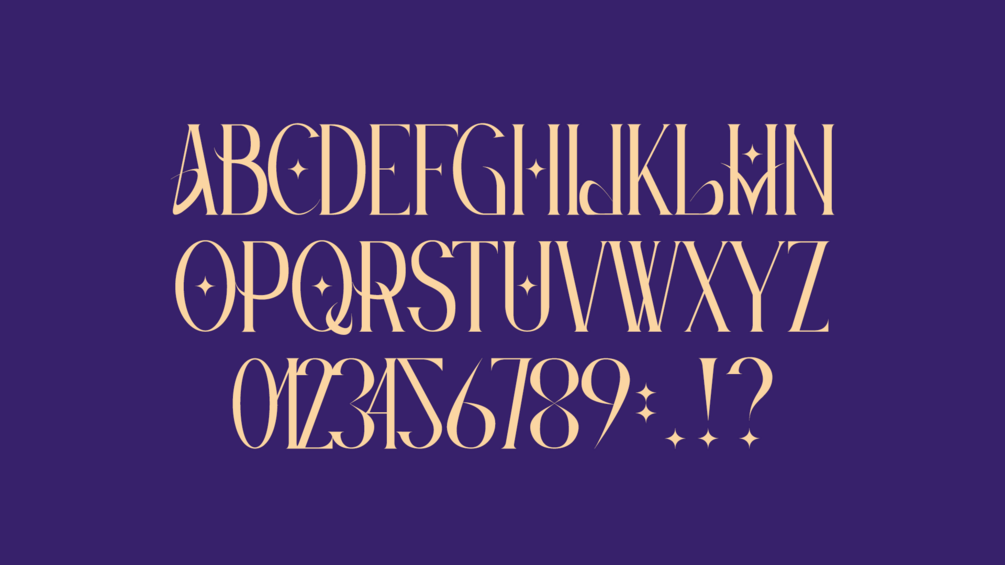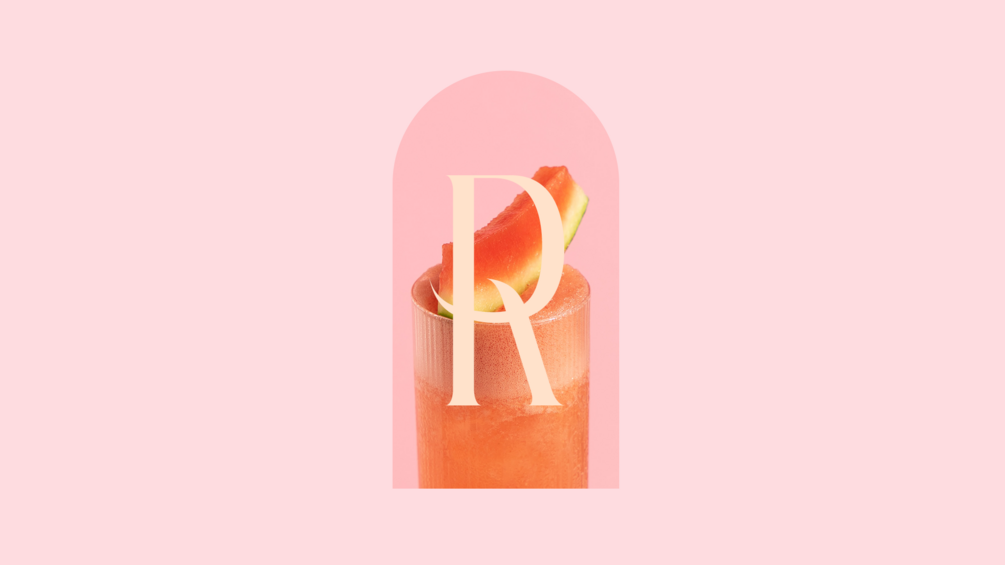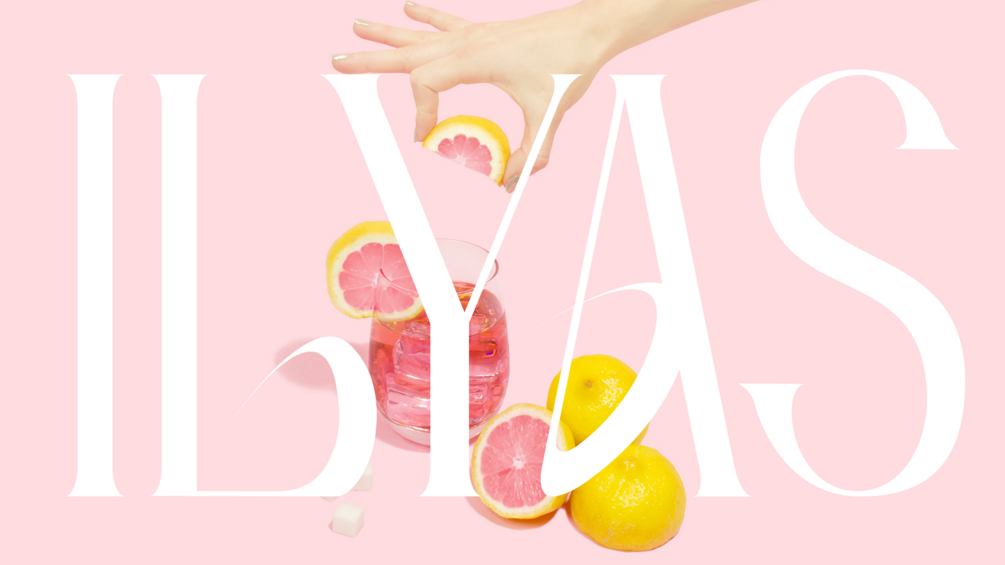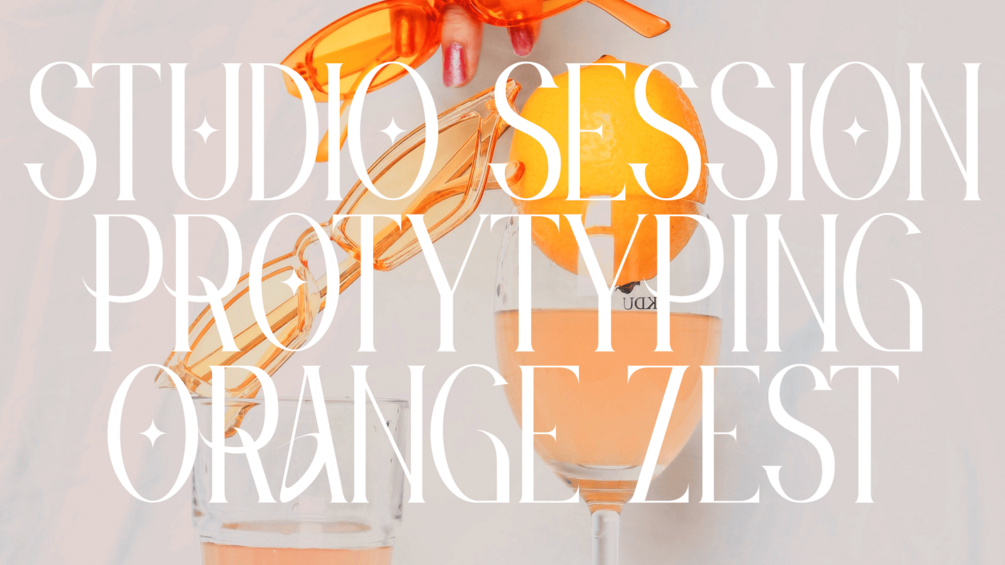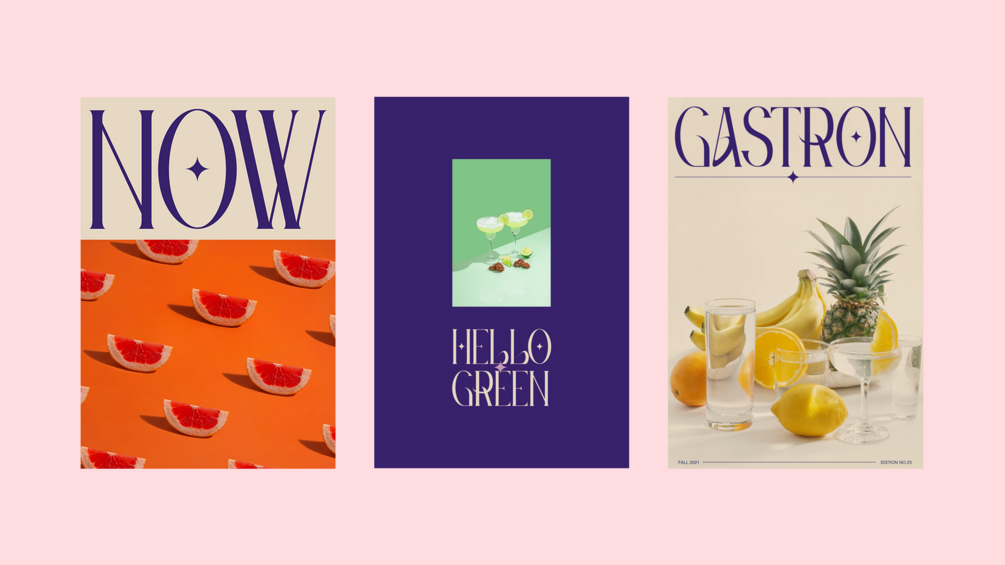
Ilyas - Free Serif
Ilyas is our free serif display font inspired by strong decorative elements. With its sharp lines and condensed style its perfect for big headlines, or used as a separate graphic element. Share with us your visuals with a hashtag #ilyastype